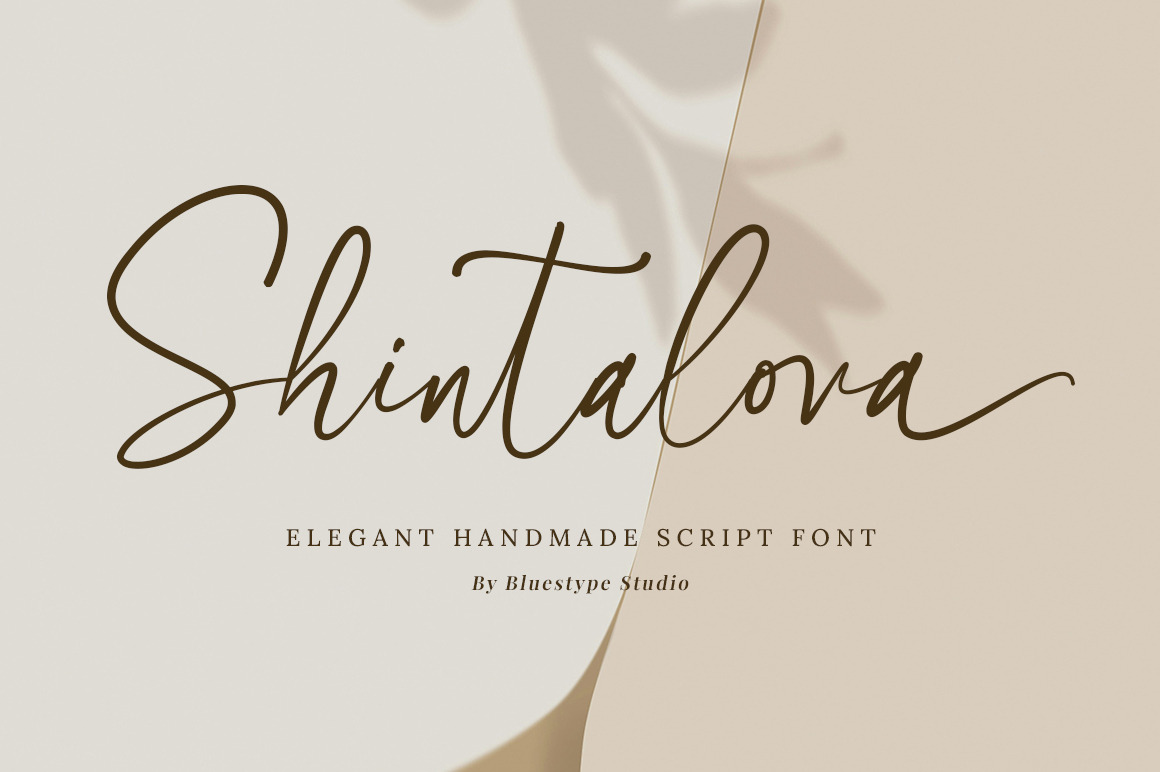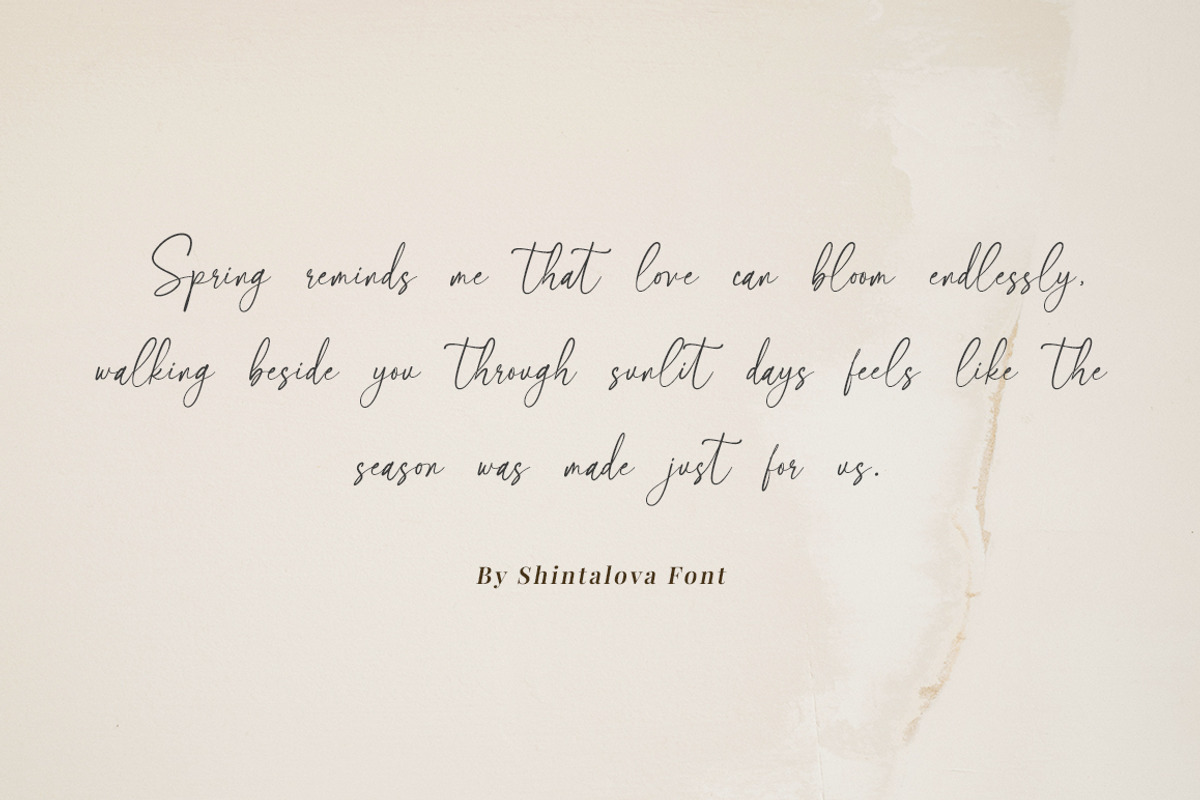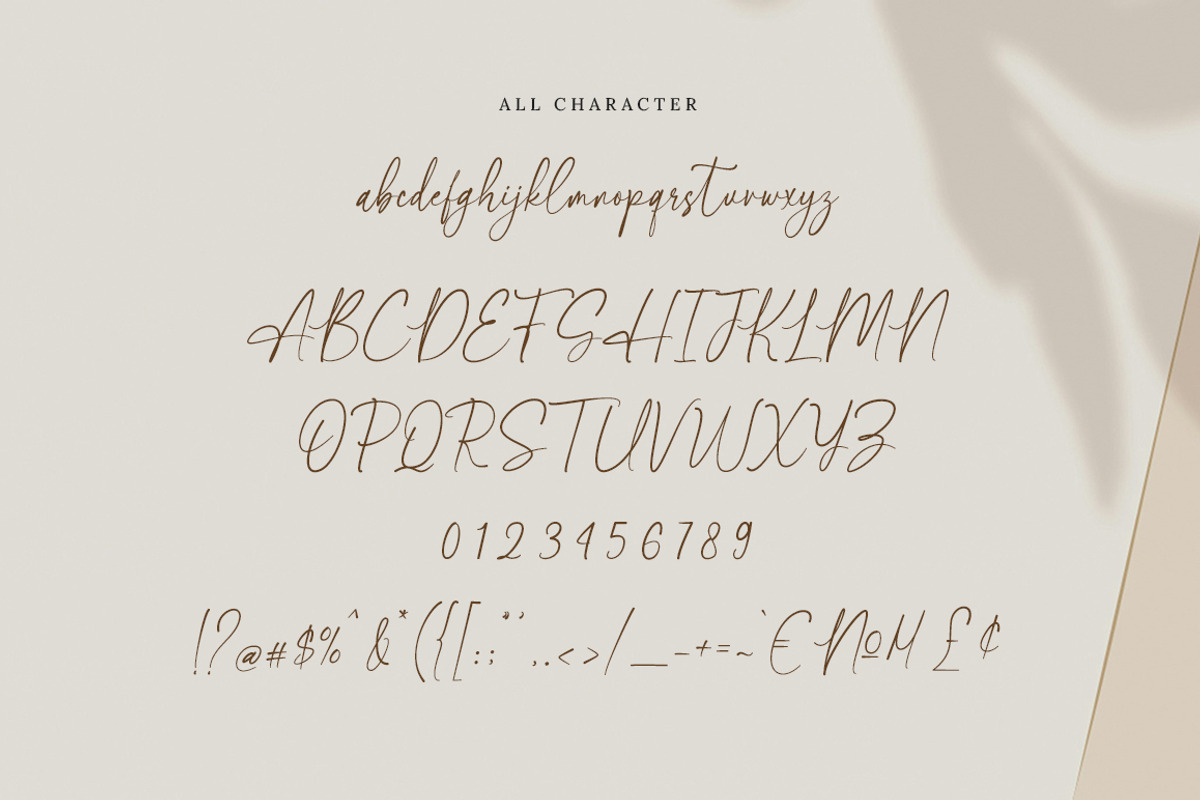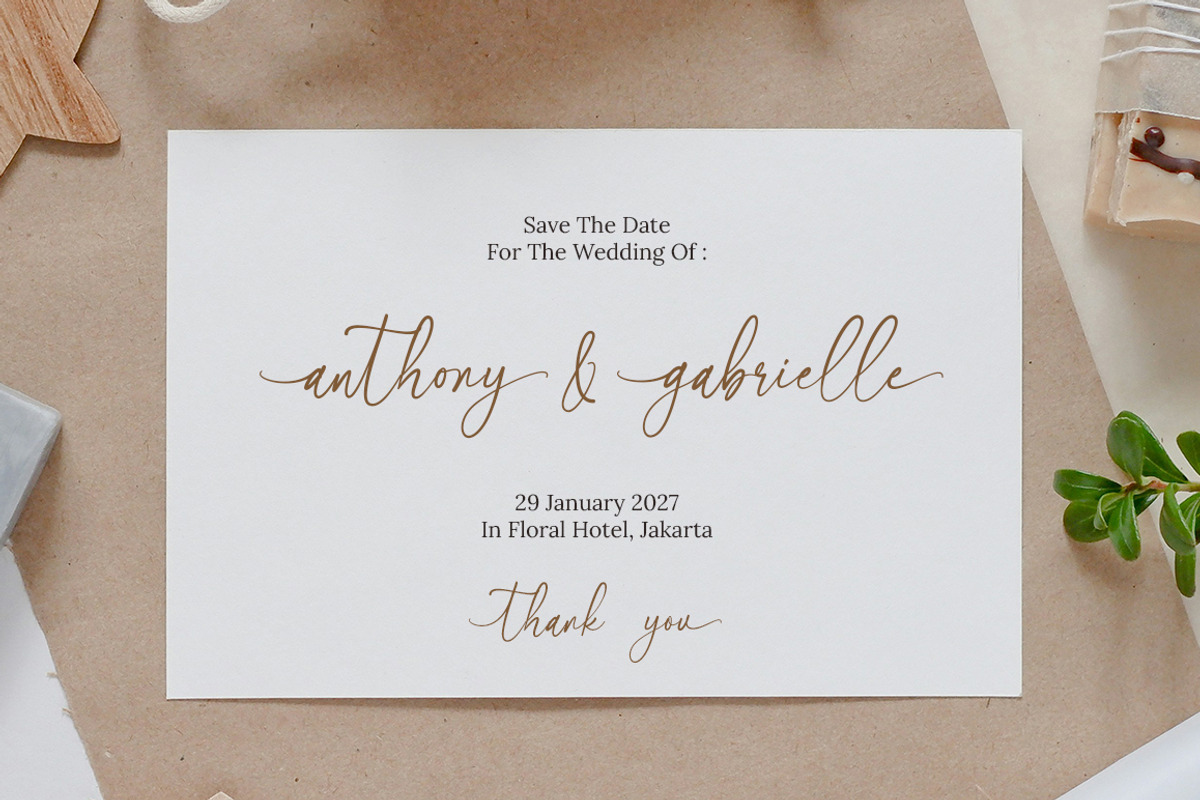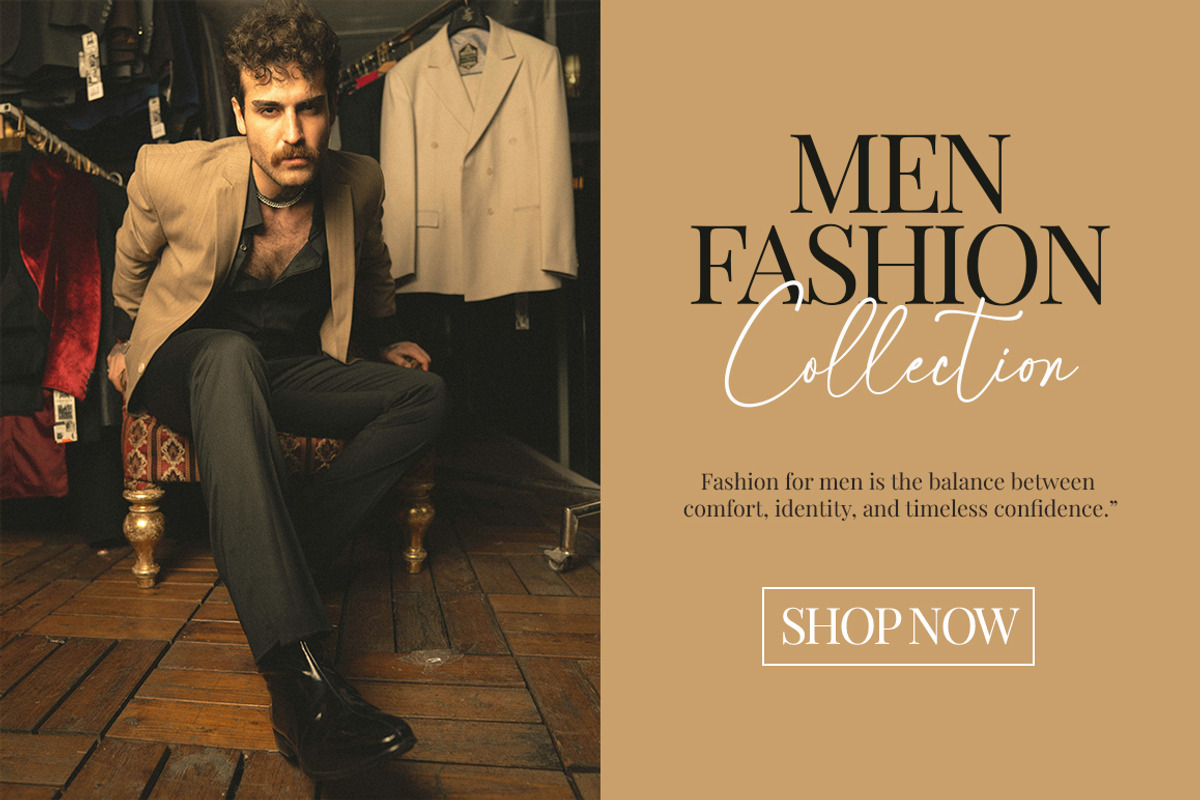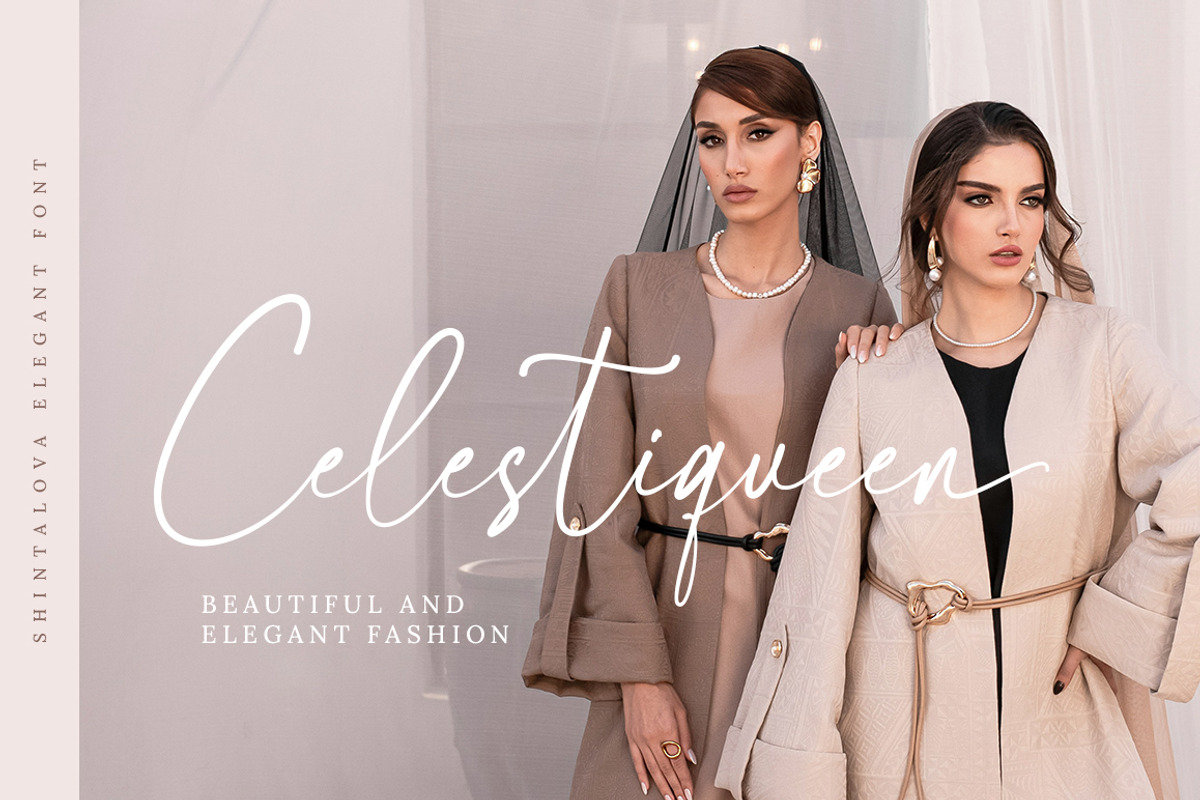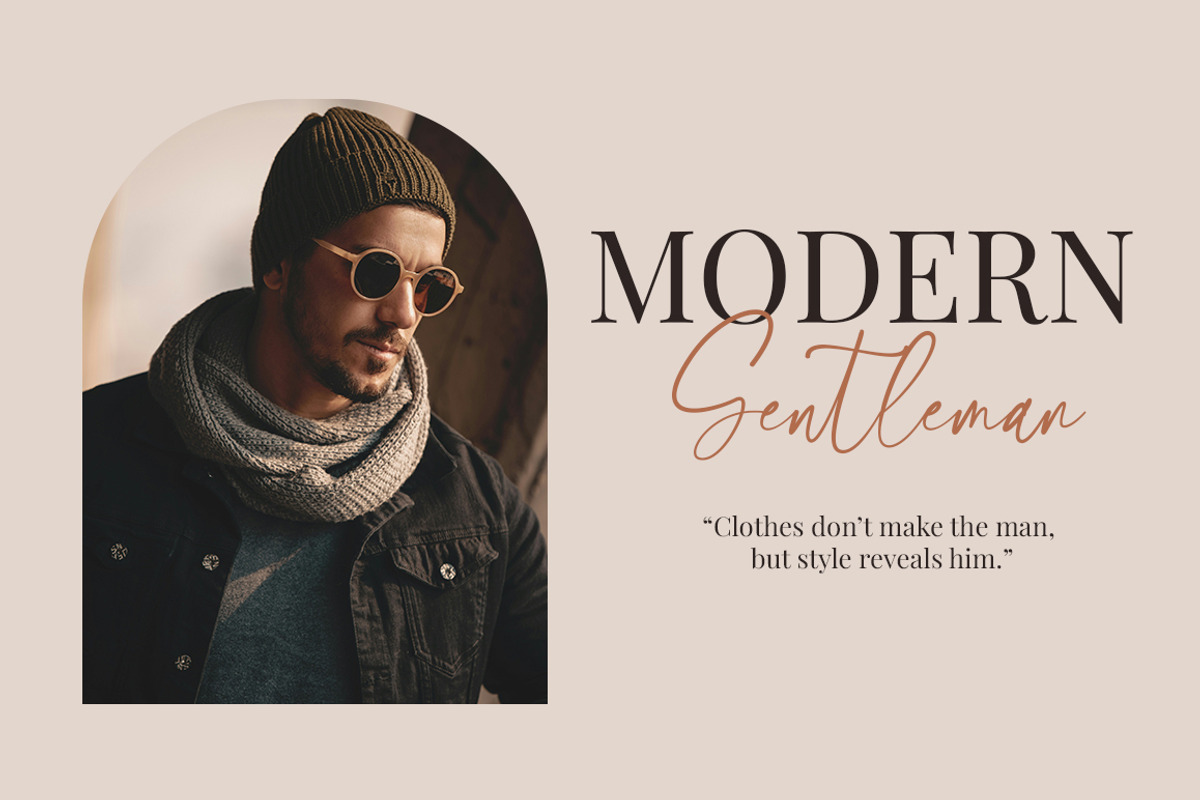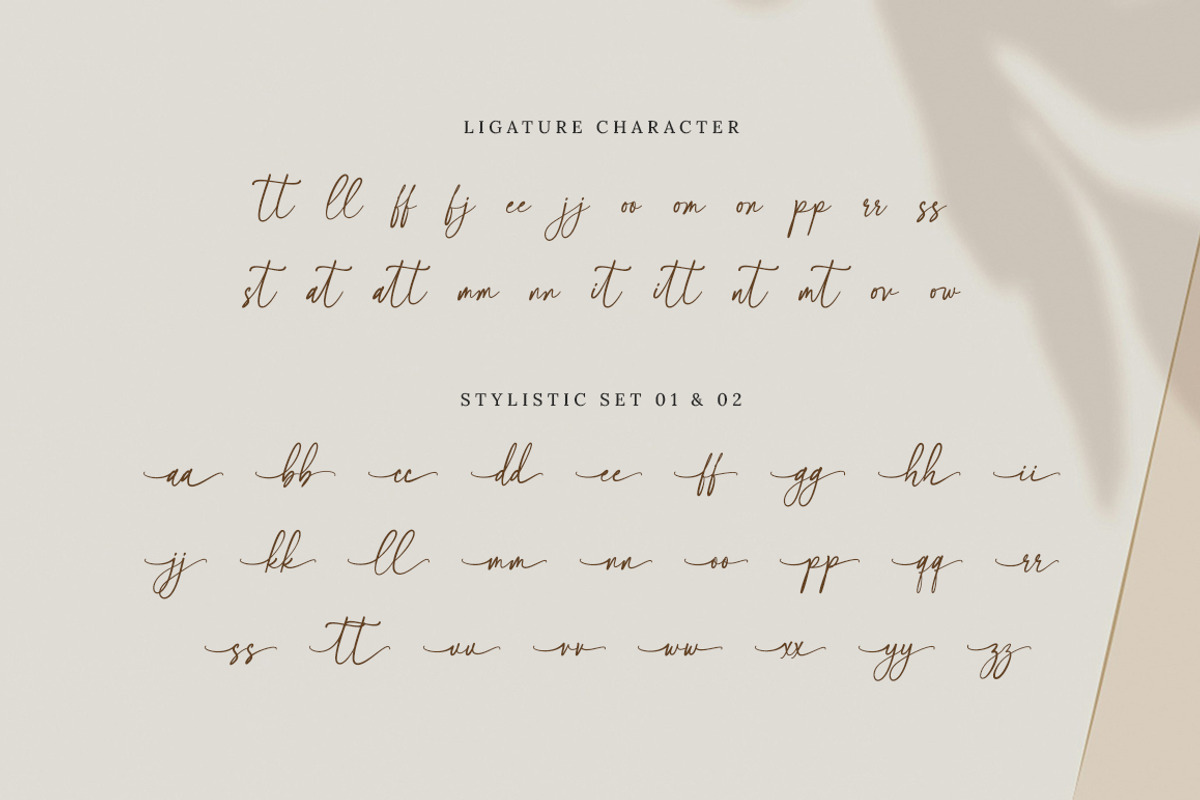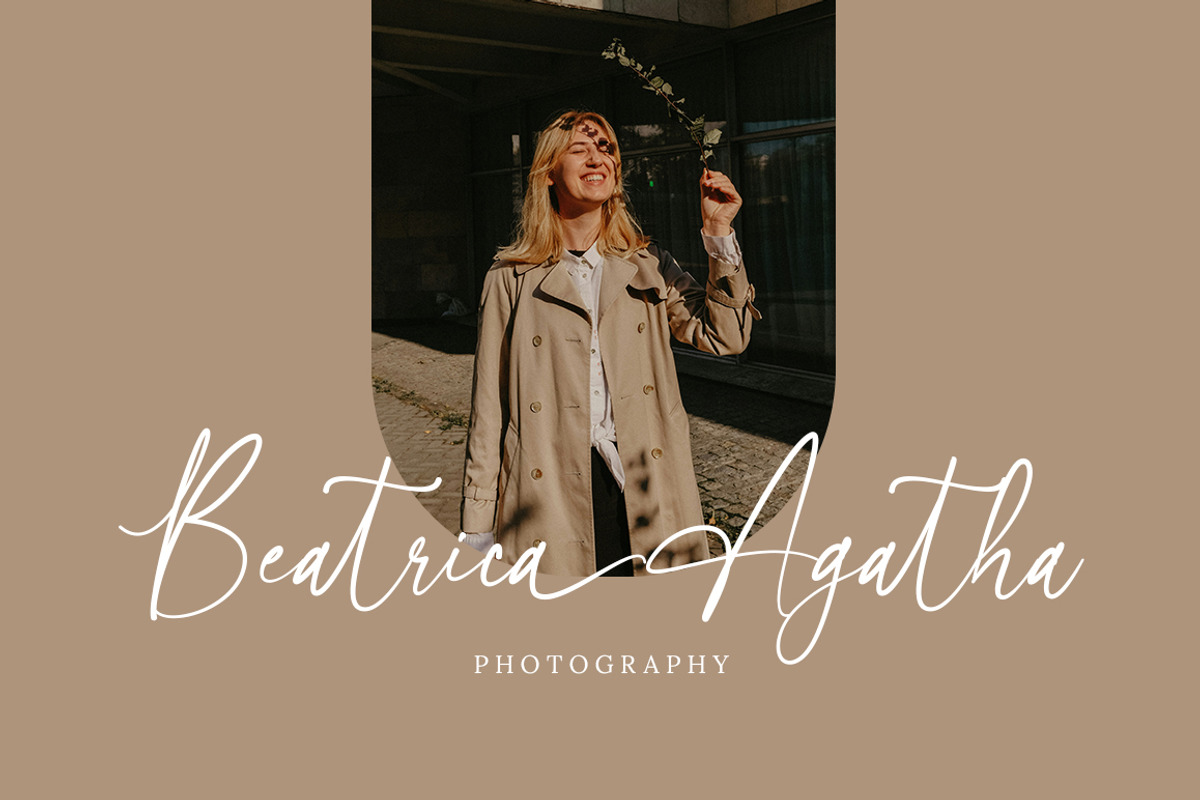
Shintalova - Elegant Script Font
Shintalova is an elegant script font designed to deliver a refined, luxurious, and timeless look. Featuring smooth curves and graceful strokes, this font blends modern sophistication with classic script charm, making it perfect for high-end and stylish design projects.
- Stylistic Set